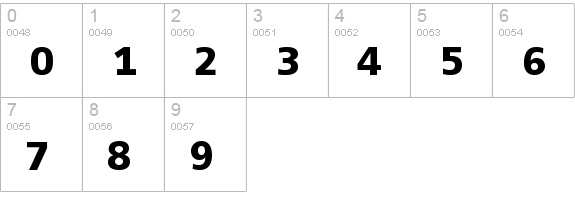
FreewayBlack Font Details
FreewayBlack font is a sleek and modern typeface that exudes sophistication and professionalism. With its bold and geometric design, this font is perfect for creating eye-catching headlines, posters, and branding materials. The sharp edges and strong presence of FreewayBlack make it stand out in any project, adding a touch of elegance and style. What's even better is that FreewayBlack is available for free download at FontsMarket.com. This means you can easily access this stunning font and use it in your designs without any cost. Whether you're a professional designer or a hobbyist looking to enhance your projects, FreewayBlack is a versatile and striking option that will elevate your work to the next level. Download FreewayBlack today and experience the power of this exceptional font for yourself.